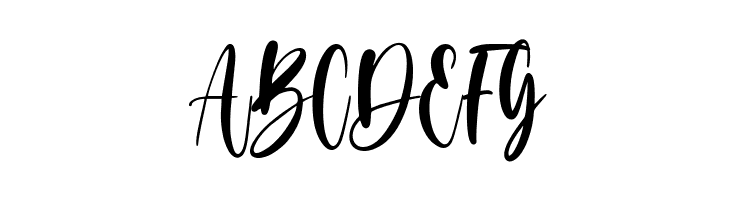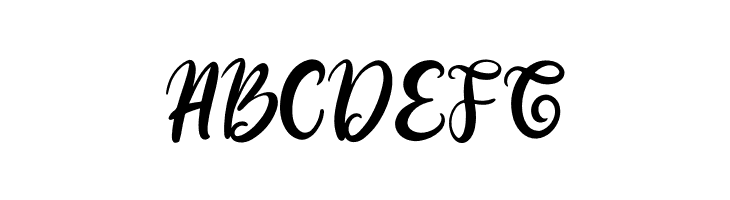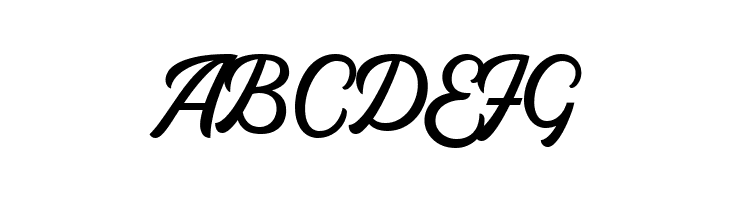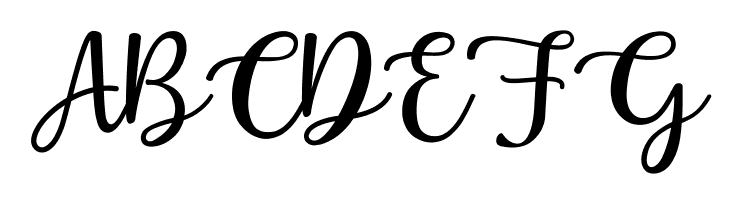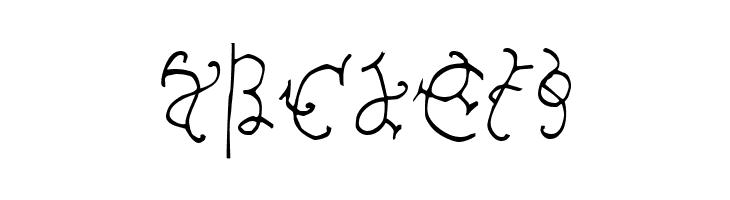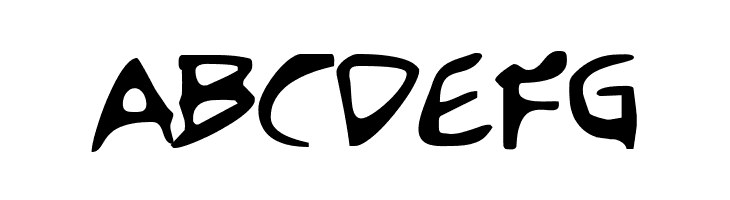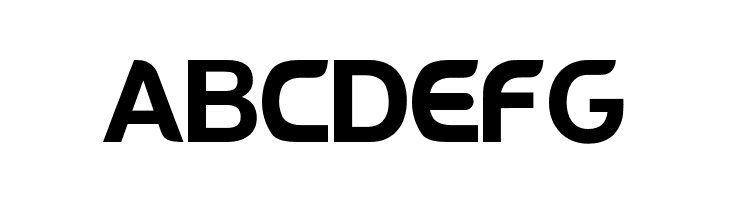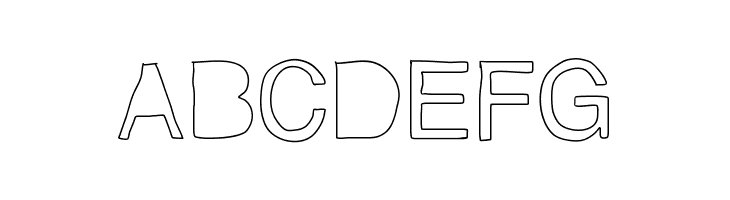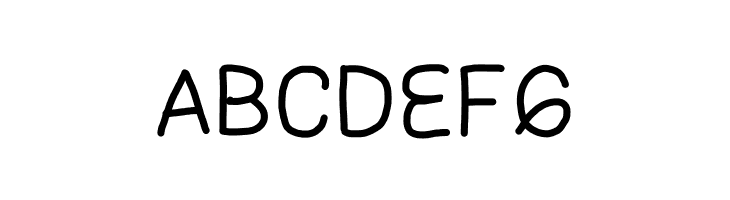
A bold, pixelated font with a retro digital aesthetic.
A modern, outlined font with clean lines and geometric structure.
A bold, decorative font with intricate, swirling patterns and a vintage psychedelic vibe.
A refined serif font with high contrast and elegant details.
A high-contrast, decorative font with modern and vintage elements.
A modern slab serif font with thin, elegant strokes and geometric influence.
An ornate, medieval-inspired font with intricate and decorative letterforms.
An artistic and decorative font with intricate, swirling letterforms.
A bold, modern font with rounded, geometric characters.
A bold, outlined font with a vintage yet modern appeal.
A bold, decorative font with a vintage, three-dimensional style.
A bold, italicized font with strong, consistent strokes and sharp edges.
A bold, decorative font with a vintage flair and strong, block-like characters.
A bold, three-dimensional font with a strong shadow effect and geometric design.
A bold, decorative font with a 3D shadow effect and geometric design.
A bold, decorative font with a 3D effect and dotted interior pattern.
An ornate, decorative font with calligraphic elegance and intricate flourishes.
A bold, geometric font composed of hexagonal shapes, offering a modern and playful style.
A lively, expressive handwritten font with fluid, sweeping strokes.
A playful, cursive font with elegant loops and smooth flow.
A bold, futuristic font with geometric and high-contrast design.
A classic script font with elegant, flowing cursive letters and moderate stroke contrast.
A bold, expressive script font with a modern, handwritten style.
A bold, cursive script with elegant, interconnected letters and a dynamic flow.